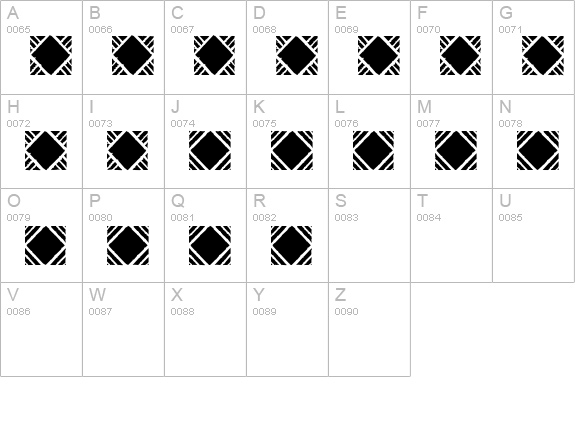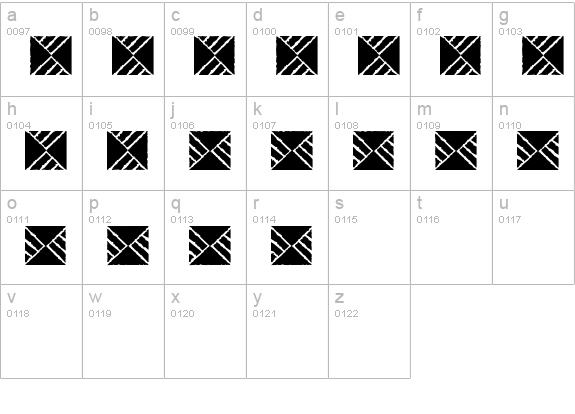
Stoned-MosaicTwo is a unique and eye-catching font that combines the rugged beauty of stone textures with the intricate design of a mosaic pattern. This font exudes a sense of strength and creativity, making it perfect for projects that require a bold and distinctive look. The intricate details of the mosaic tiles are beautifully complemented by the rough edges of the stone, creating a visually stunning effect. What makes Stoned-MosaicTwo even more appealing is that it is available for free download at FontsMarket.com. This means that you can easily add this striking font to your collection without any cost. Whether you're working on a graphic design project, branding, or any other creative endeavor, Stoned-MosaicTwo is sure to make a lasting impression. Download it today and bring a touch of artistic flair to your work!